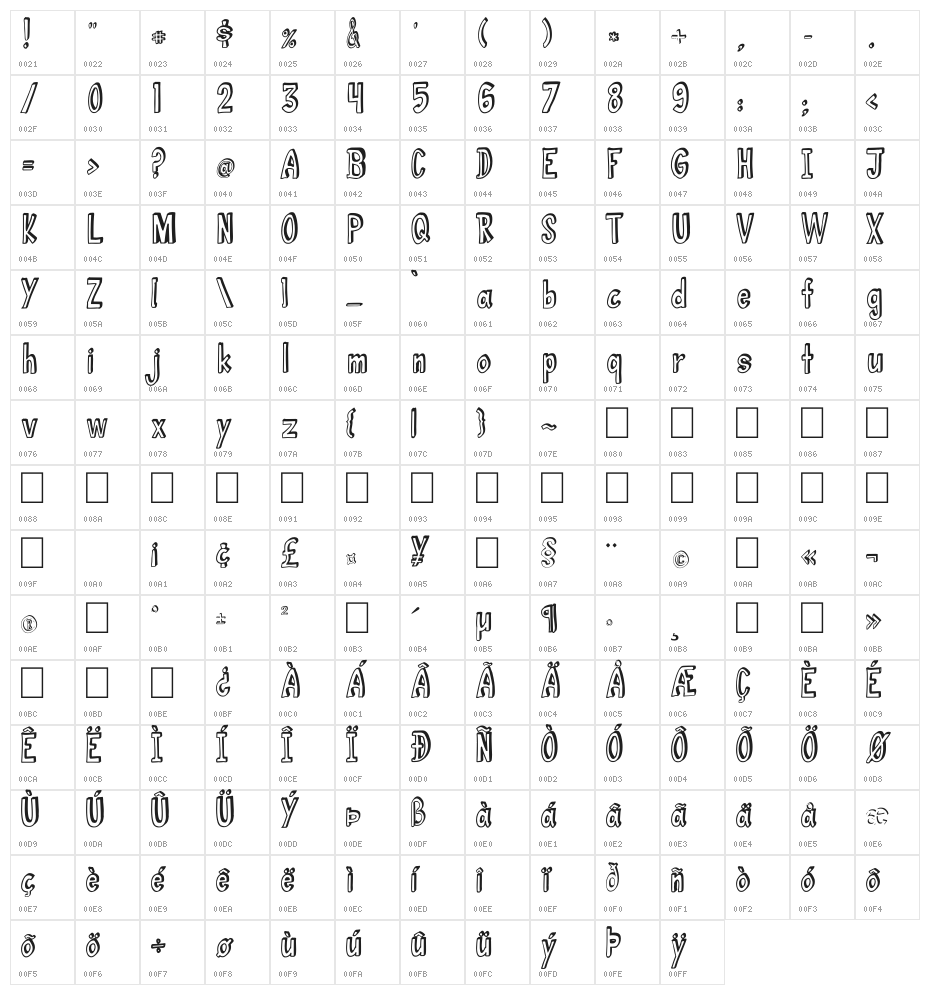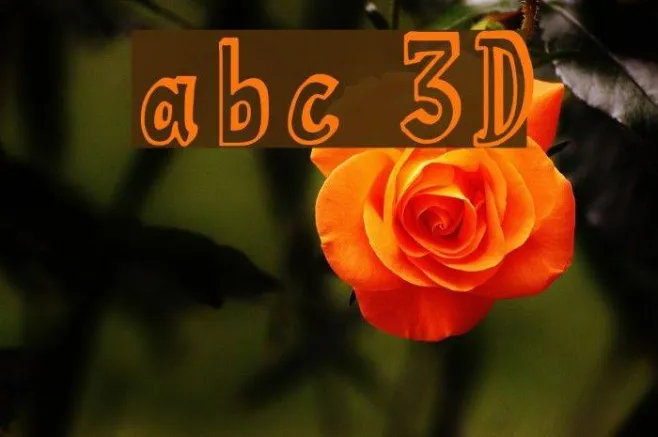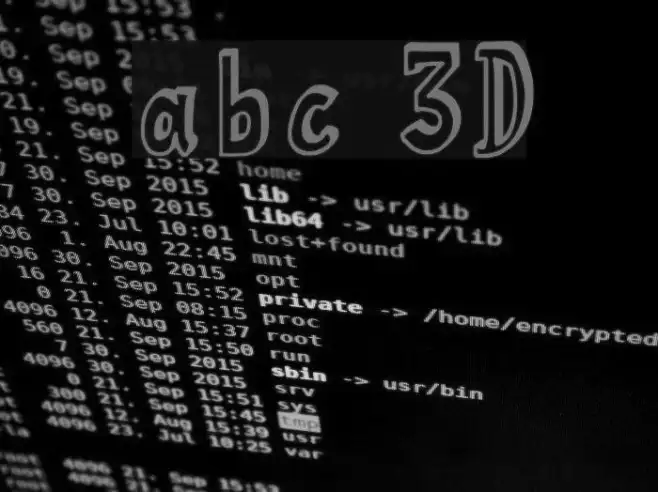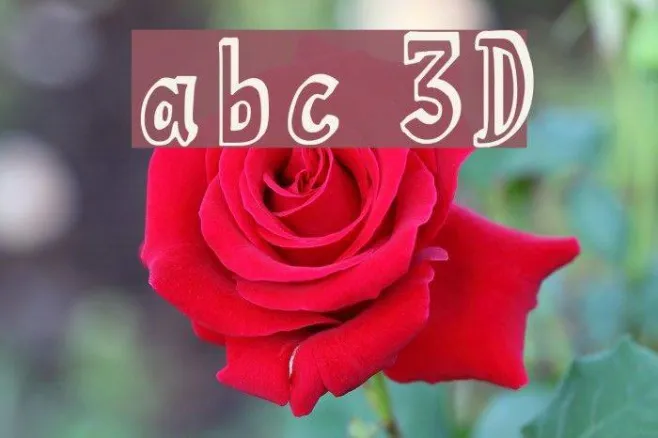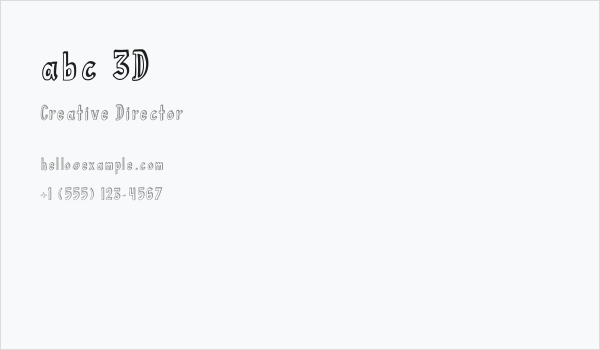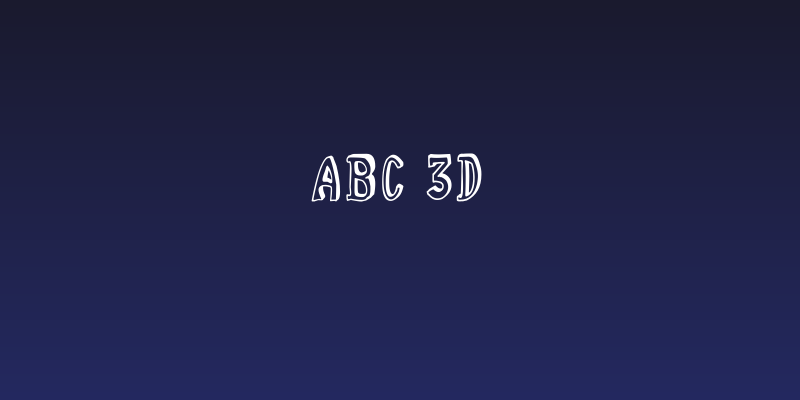
abc 3D Font
abc 3D Description
This font features a playful and bold 3D outline style, giving each character a sense of depth and dimension. The uppercase and lowercase letters maintain a consistent design, with rounded edges and a slightly whimsical flair. The numerals and special characters follow the same aesthetic, ensuring uniformity across all glyphs. The font's unique style makes it stand out, with a hand-drawn feel that adds a touch of creativity and fun. It's perfect for projects that require a lively and engaging typeface, capturing attention with its distinctive look.
| Proposed Projects | Ideal for children's books, playful branding, posters, and creative design projects. |